Food Photography
One of my passions—besides type design—is food photography. It's especially fun when I can use one of my food photos along with one of my typefaces to create a font poster. You can see some of my attempts below. Most of these are informal photos taken at various local restaurants and coffee houses, with very little editing. So, they are not as styled or as carefully composed as they might otherwise be. But, hopefully your mouth will water a bit, if not for the food, perhaps for the font! Click on any font poster (or the Gallery link) for a larger view and for more information about that font. All photos by Jason Castle unless otherwise noted.
Unu el miaj pasioj—krom desegni tiparojn—estas foti manĝaĵon. Feliĉigas min kiam mi povas uzi unu el miaj manĝfotoj kune kun unu el miaj tiparoj por krei afiŝon, iuj kiujn vi povas vidi sube. Plej multaj el tiuj estas neformalaj fotoj prenitaj ĉe diversaj lokaj restoracioj kaj kafejoj, kun tre malmulte da redaktado. Do, ili ne estas tiel stilitaj aŭ tiel zorge kunmetitaj kiel povus esti. Sed, espereble via buŝo iom akvumos, se ne por la manĝaĵo, eble por la tiparo! Klaku je iu ajn afiŝo (aŭ la ligo "Gallery") por pli granda vido kaj por pliaj informoj pri tiu tiparo.
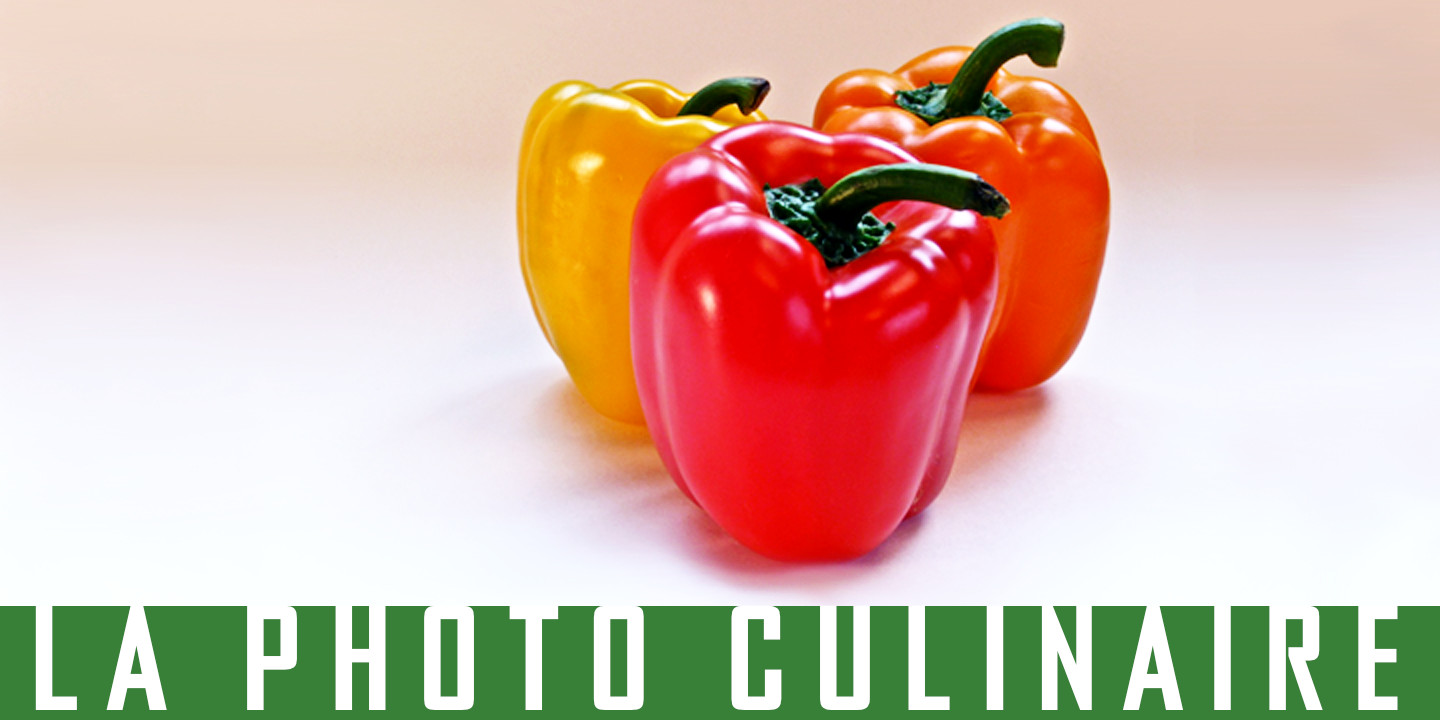
Agency Gothic CT Bold
Originally designed by American type designer Morris Fuller Benton in 1933, Agency Gothic is a wonderful, narrow, squarish art deco typeface.
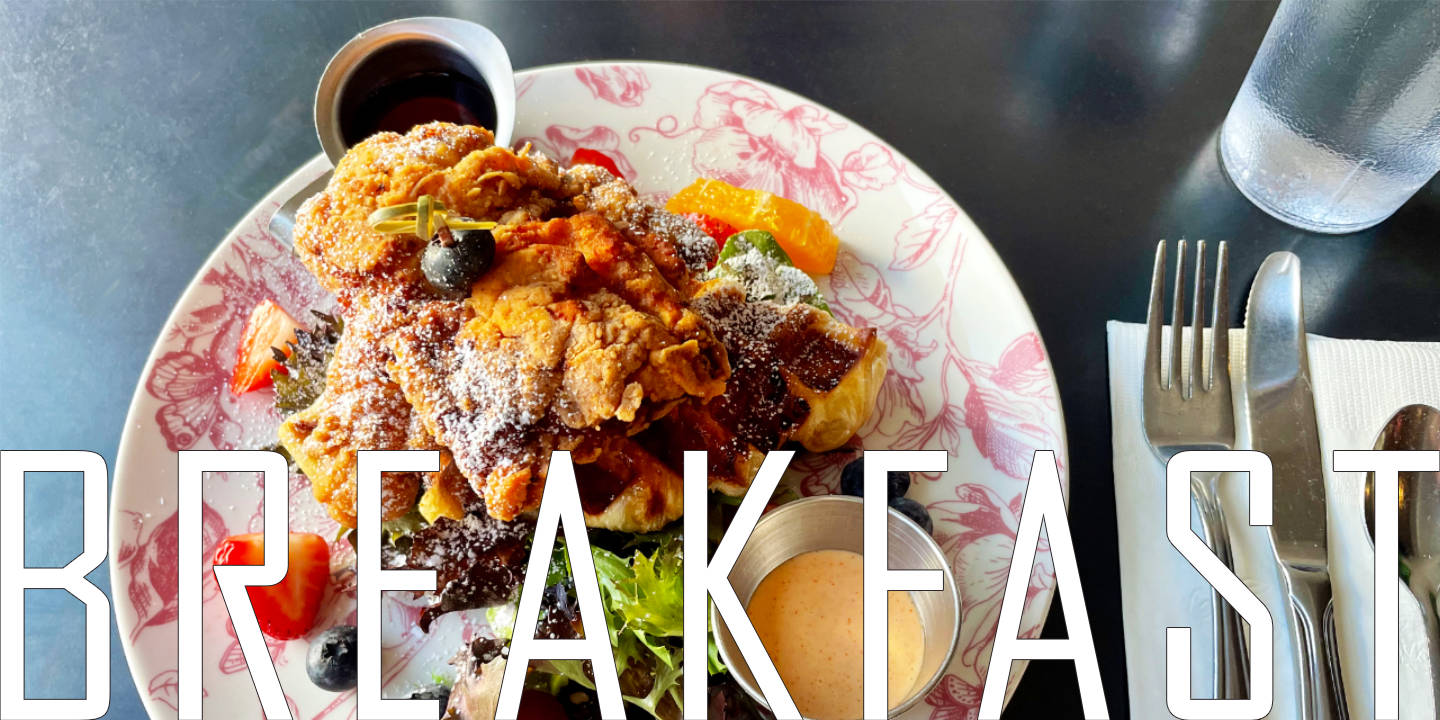
Agency Gothic CT Light
Originally designed by American type designer Morris Fuller Benton in 1933, Agency Gothic is a wonderful, narrow, squarish art deco typeface.
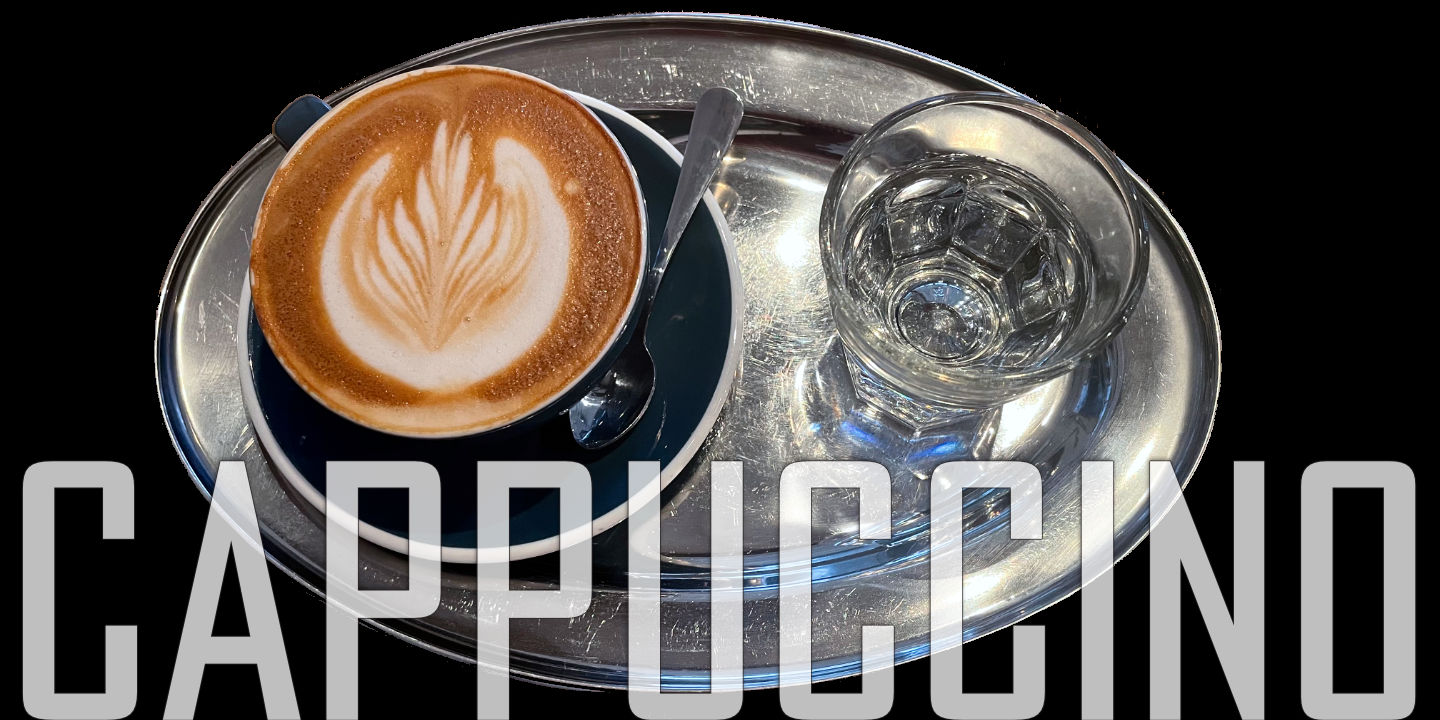
Agency Gothic CT Medium
Originally designed by American type designer Morris Fuller Benton in 1933, Agency Gothic is a wonderful, narrow, squarish art deco typeface.
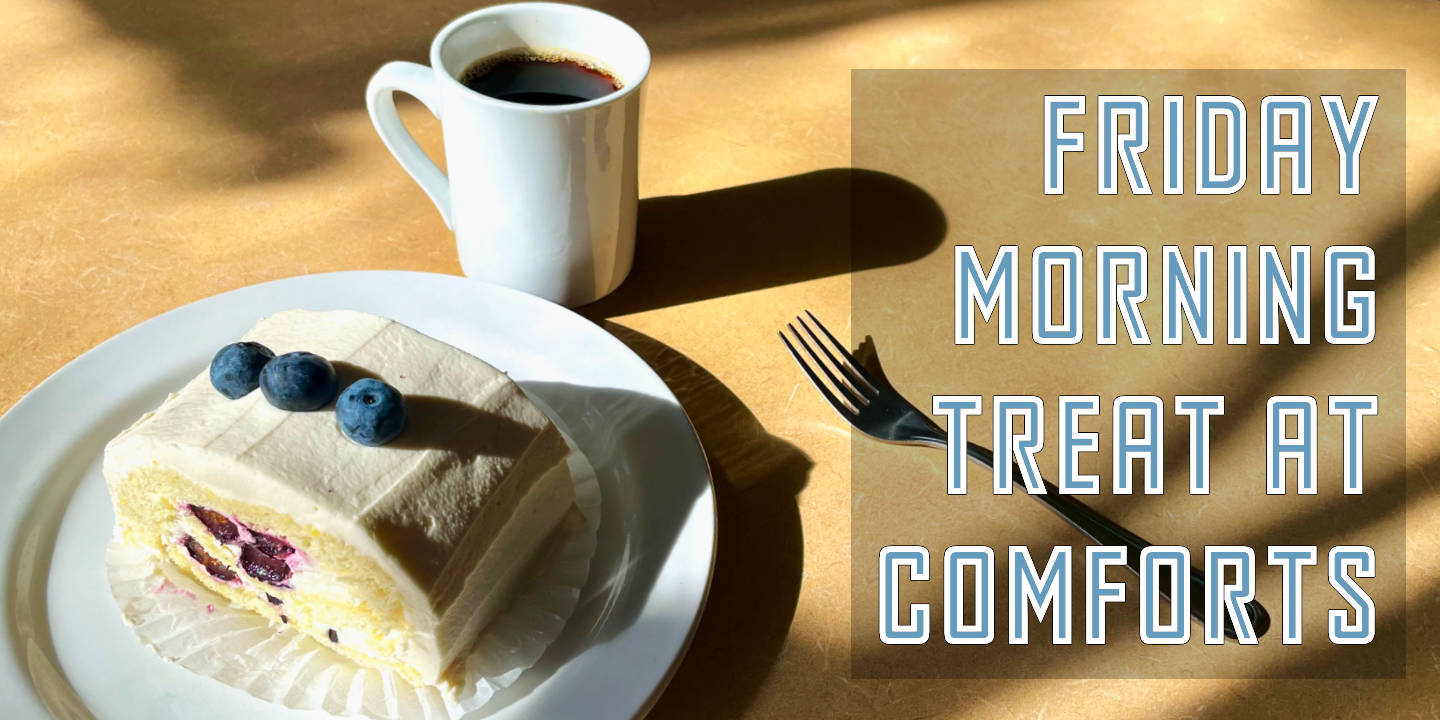
Agency Gothic CT Inline
Originally designed by American type designer Morris Fuller Benton in 1933, Agency Gothic is a wonderful, narrow, squarish art deco typeface.
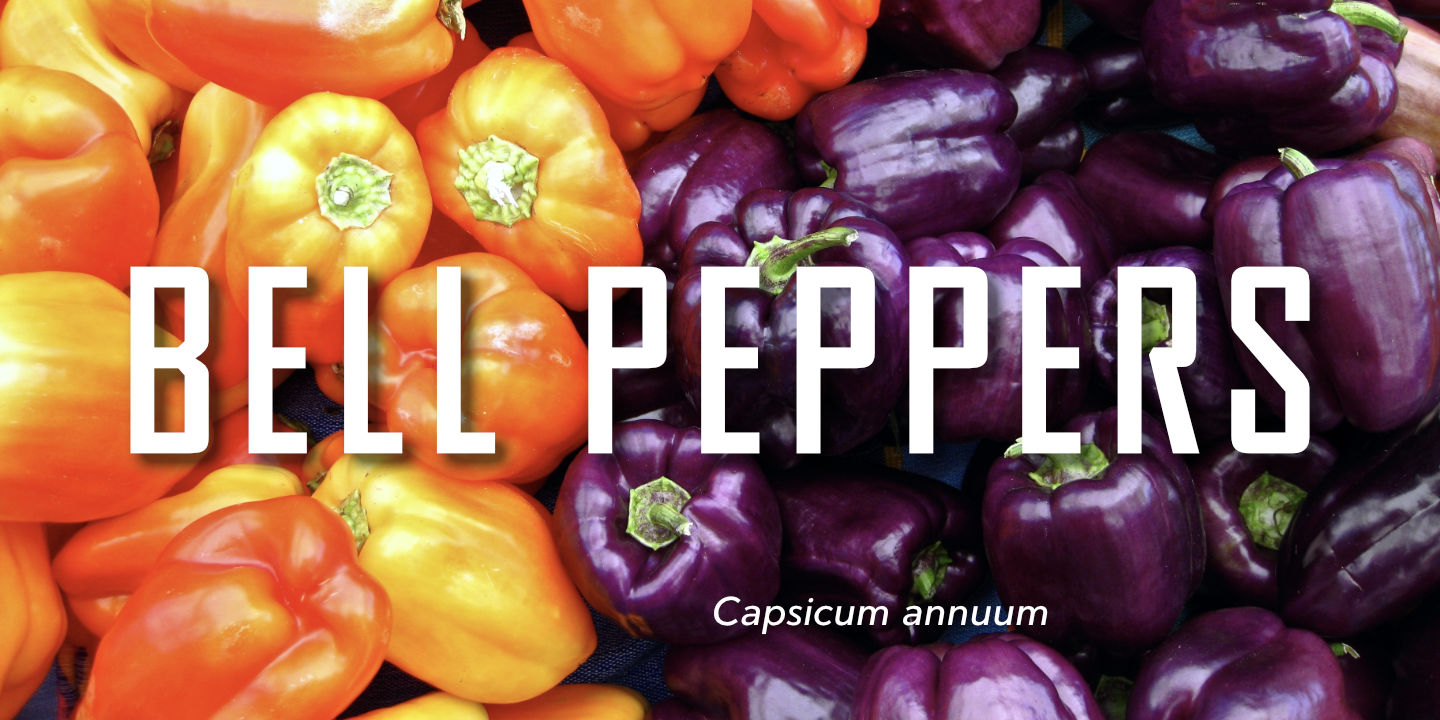
Agency Gothic Condensed
Originally designed by American type designer Morris Fuller Benton in 1933, Agency Gothic is a wonderful, narrow, squarish art deco typeface.
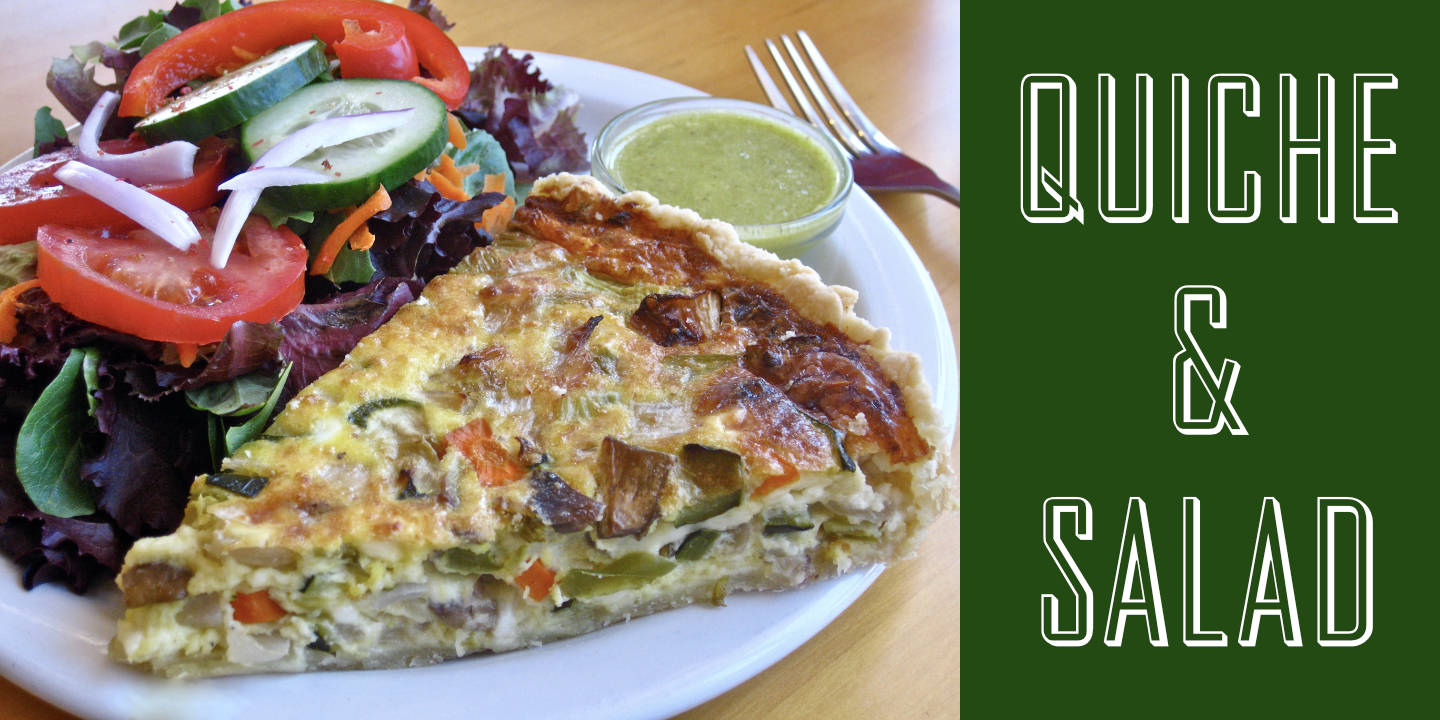
Agency Gothic CT Open
Originally designed by American type designer Morris Fuller Benton in 1933, Agency Gothic is a wonderful, narrow, squarish art deco typeface.
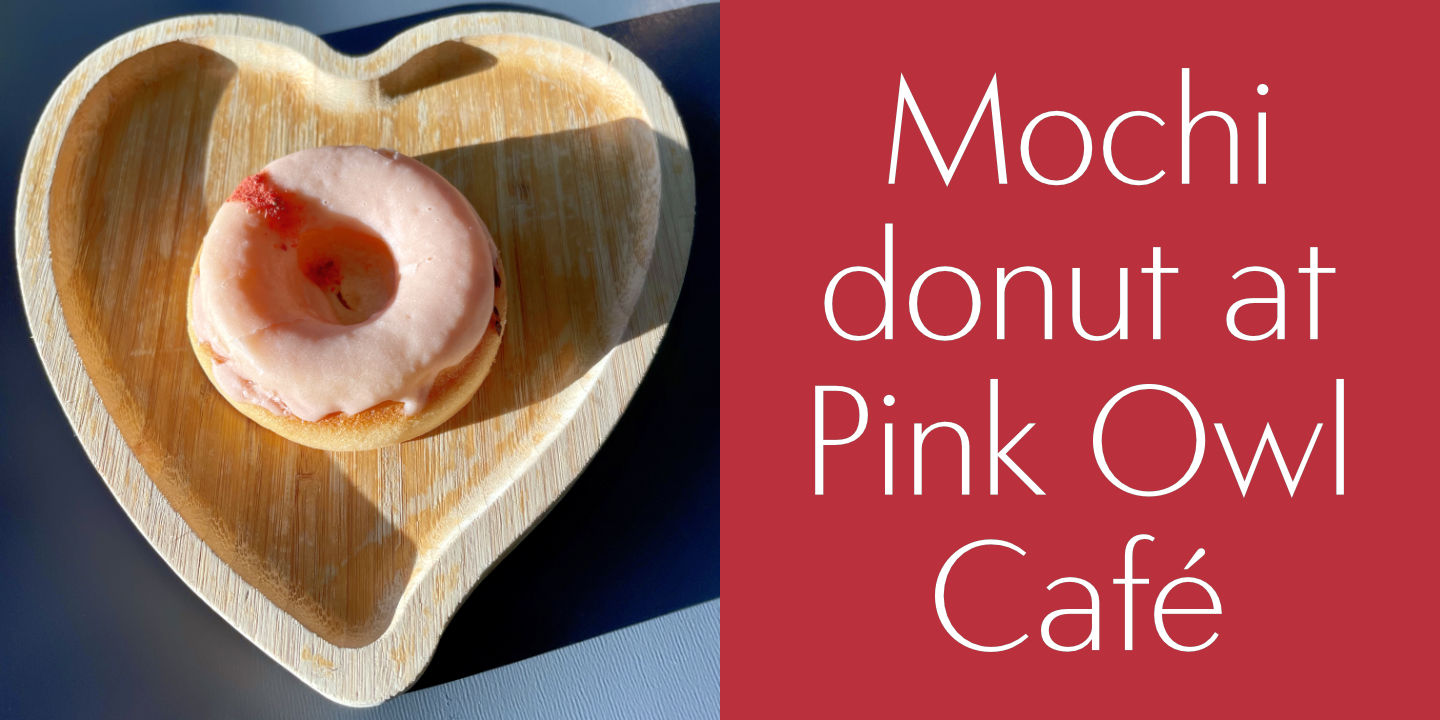
Carisma Light
Carisma™, a CastleType Original, is the perfect typeface for an understated, modern, sophisticated look. All weights of Carisma include small caps and oldstyle numerals. See also Carisma Gothic.
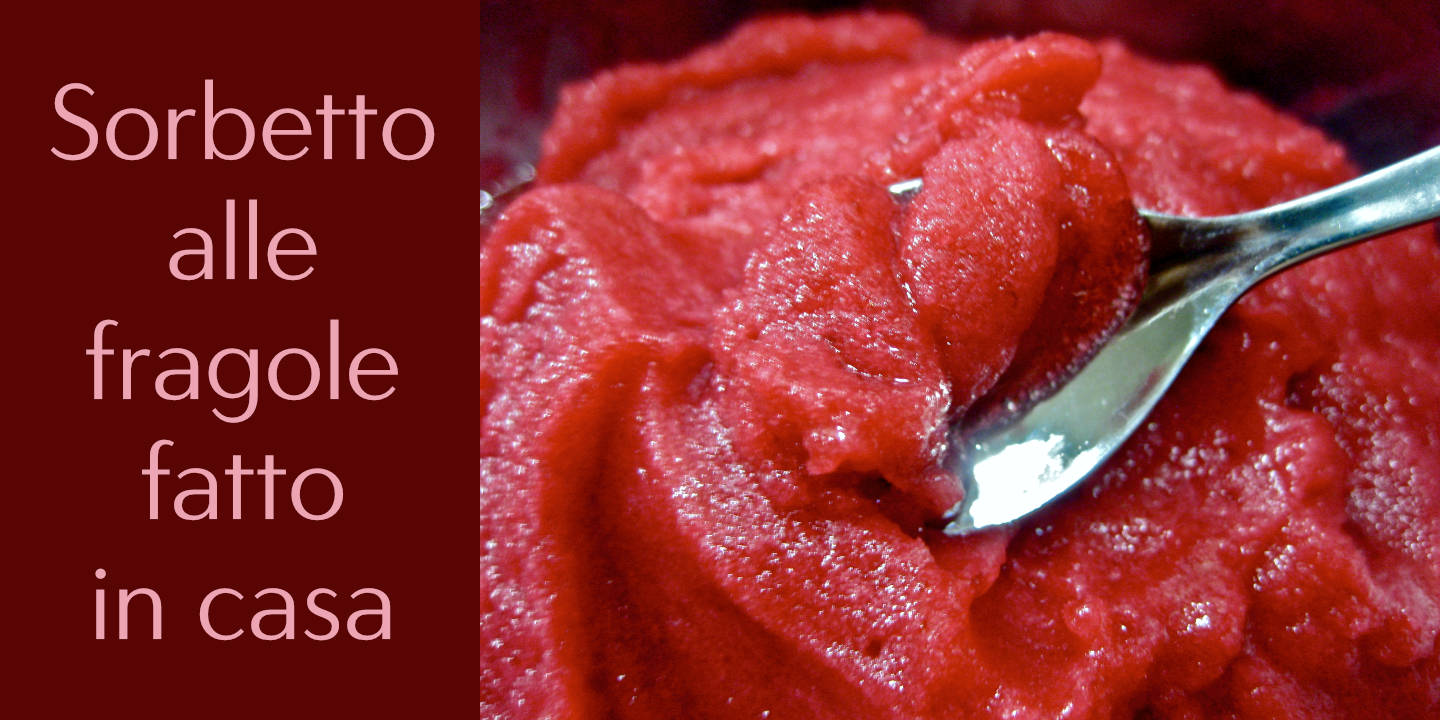
Carisma Regular
Carisma™, a CastleType Original, is the perfect typeface for an understated, modern, sophisticated look. All weights of Carisma include small caps and oldstyle numerals. See also Carisma Gothic.
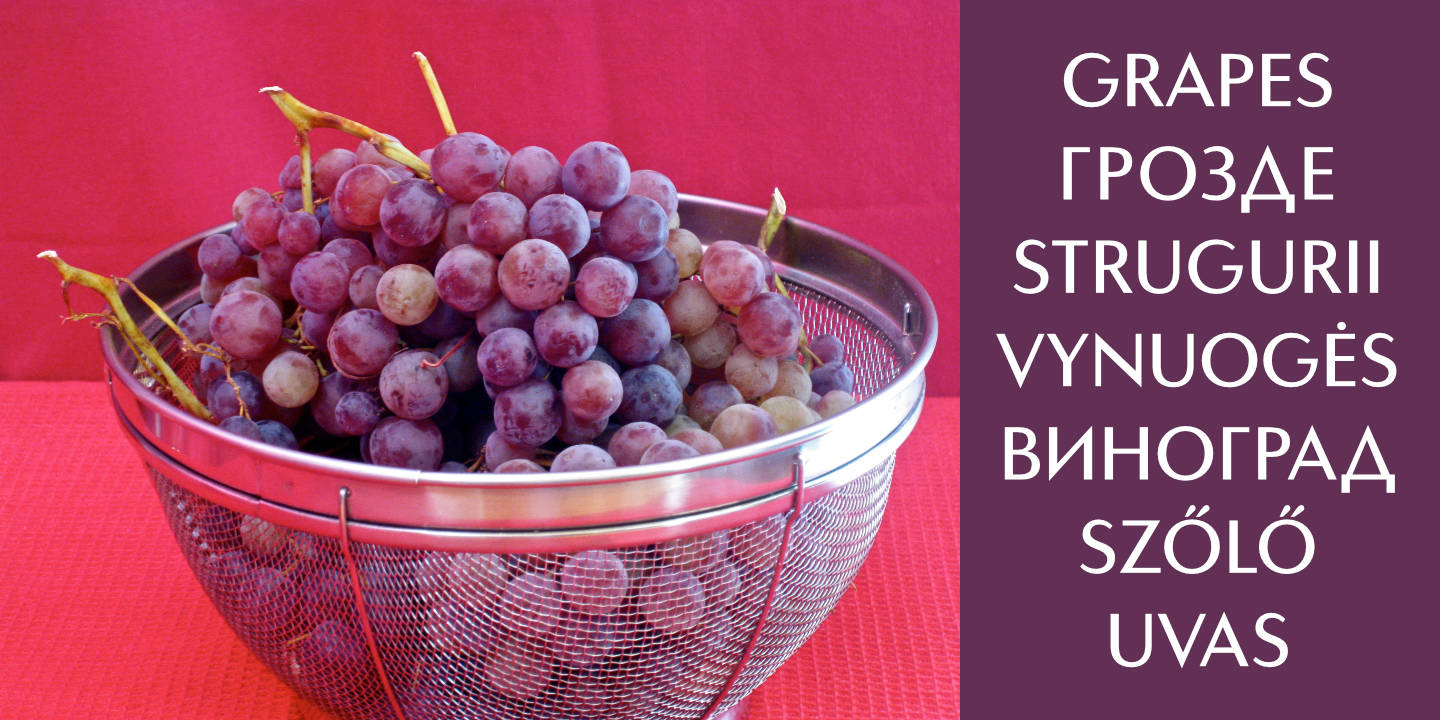
Carisma Medium
Carisma™, a CastleType Original, is the perfect typeface for an understated, modern, sophisticated look. All weights of Carisma include small caps and oldstyle numerals. See also Carisma Gothic.
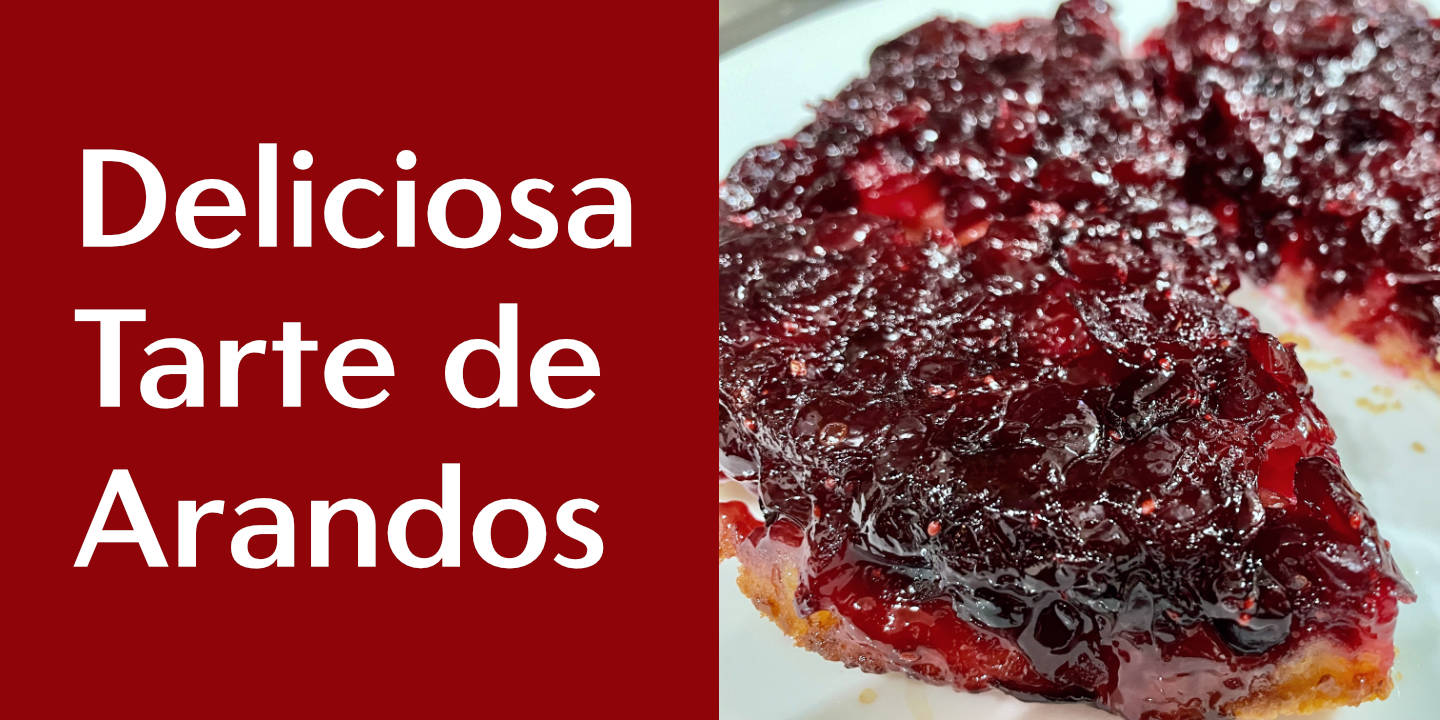
Carisma DemiBold
Carisma™, a CastleType Original, is the perfect typeface for an understated, modern, sophisticated look. All weights of Carisma include small caps and oldstyle numerals. See also Carisma Gothic.
Carisma Bold
Carisma™, a CastleType Original, is the perfect typeface for an understated, modern, sophisticated look. All weights of Carisma include small caps and oldstyle numerals. See also Carisma Gothic.
Zuboni Stencil
Zuboni Stencil is a bold, uppercase-only typeface based on a Russian design from around 1920 (original designer unknown). Its extensive character set supports most European languages that use the Latin or Cyrillic alphabets as well as modern (monotonic) Greek.